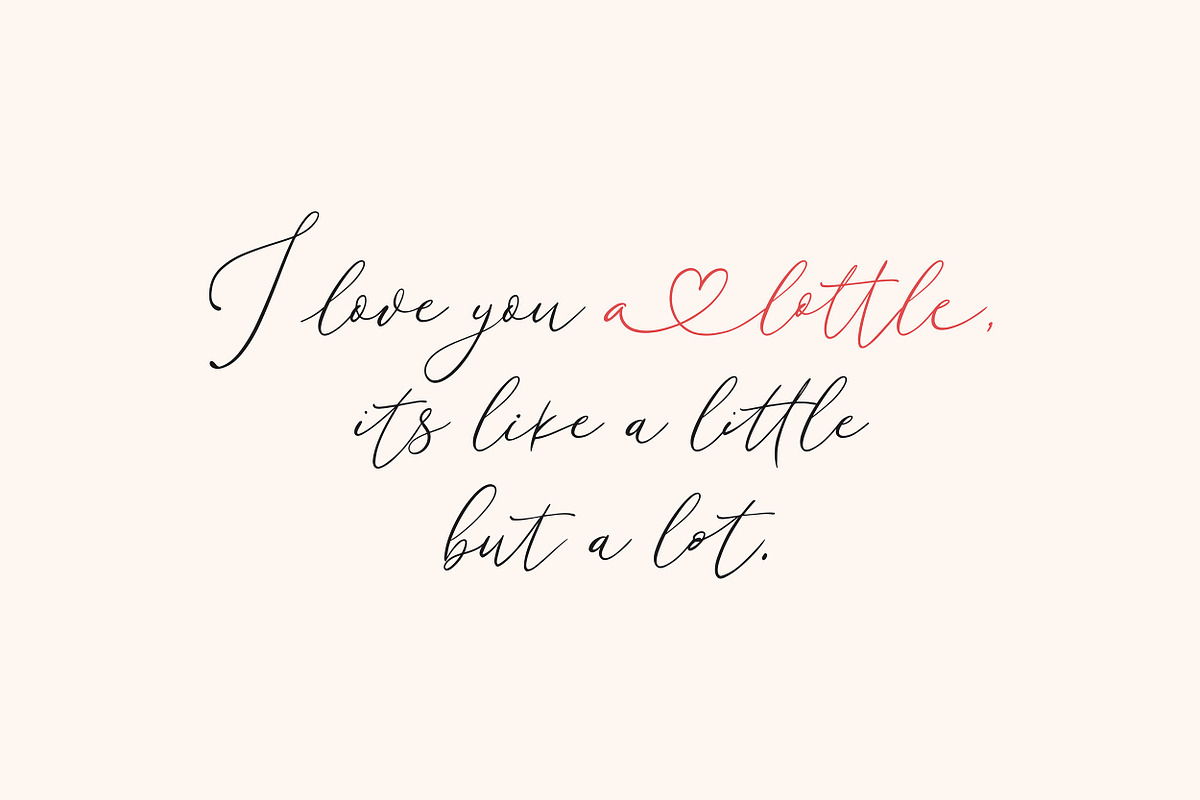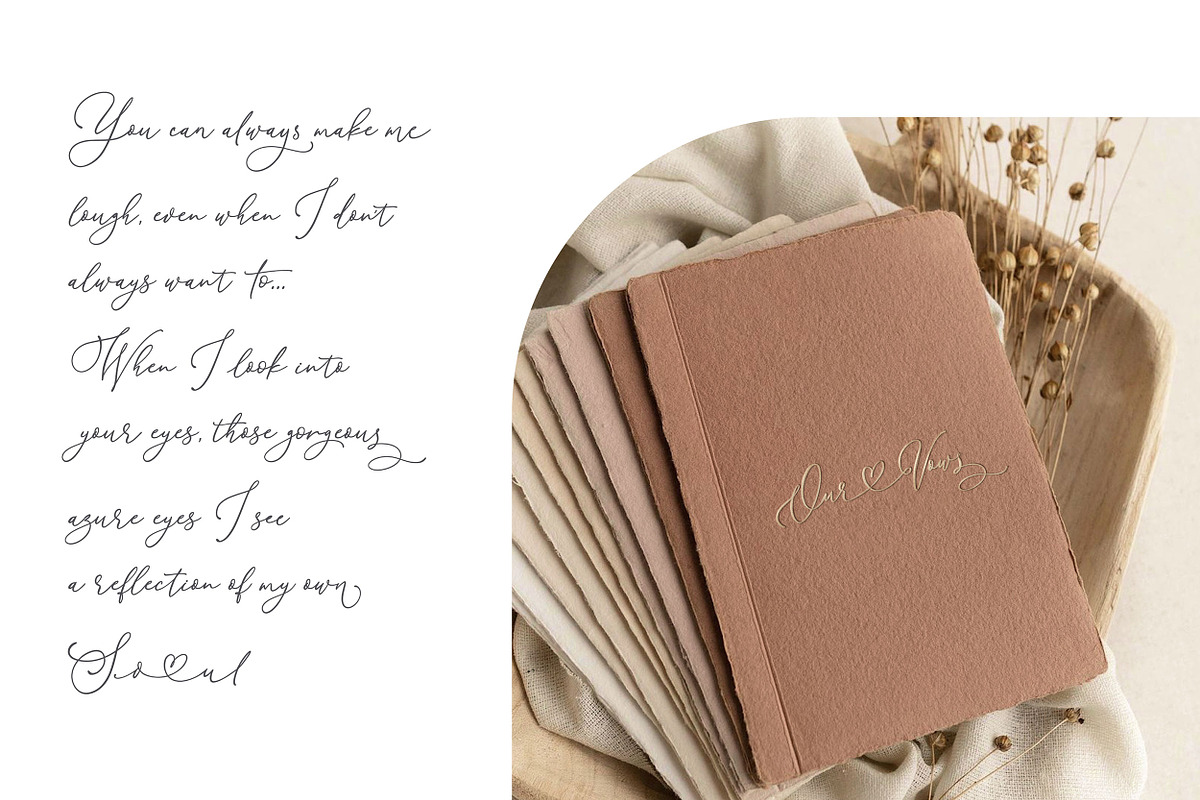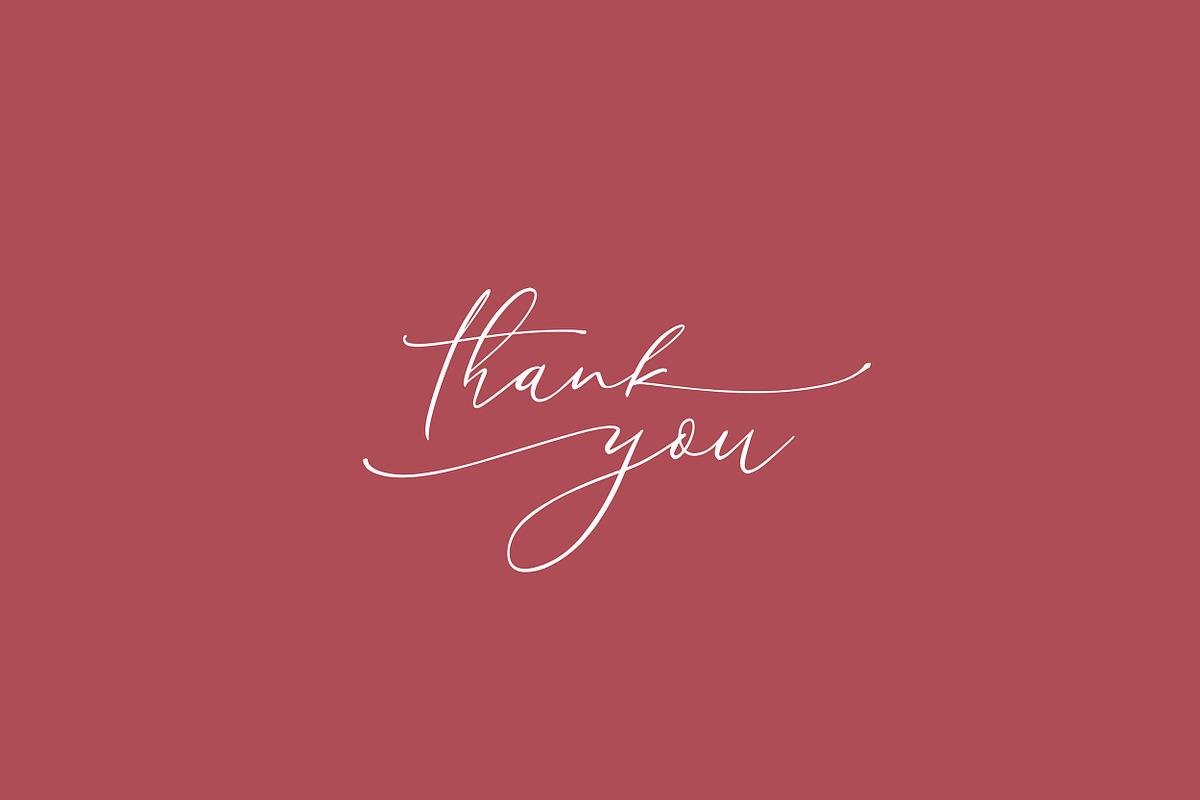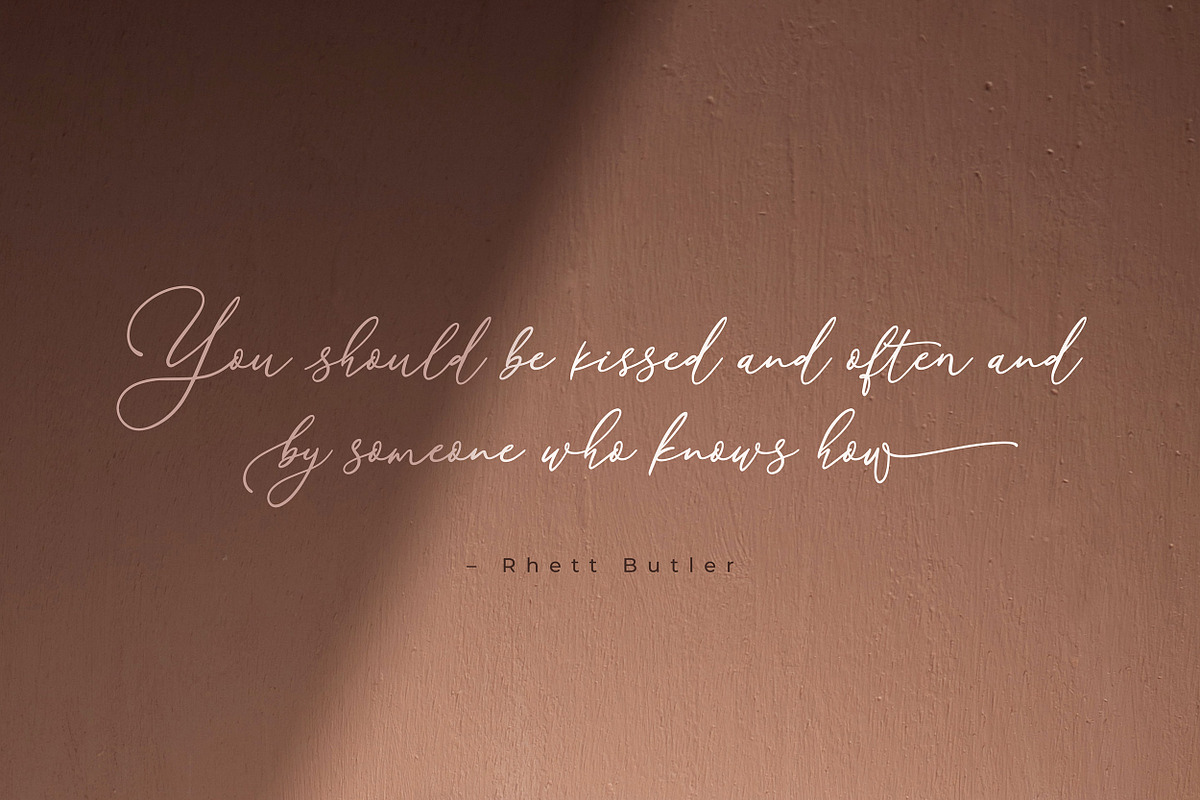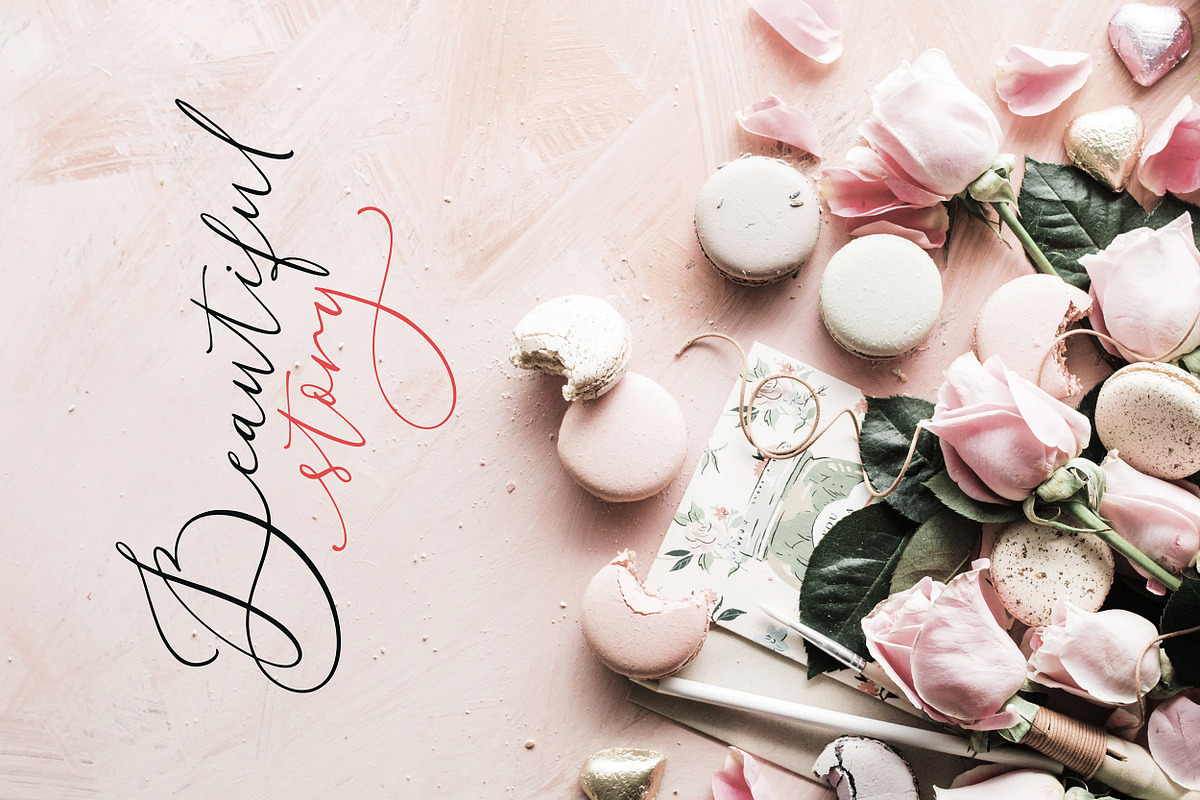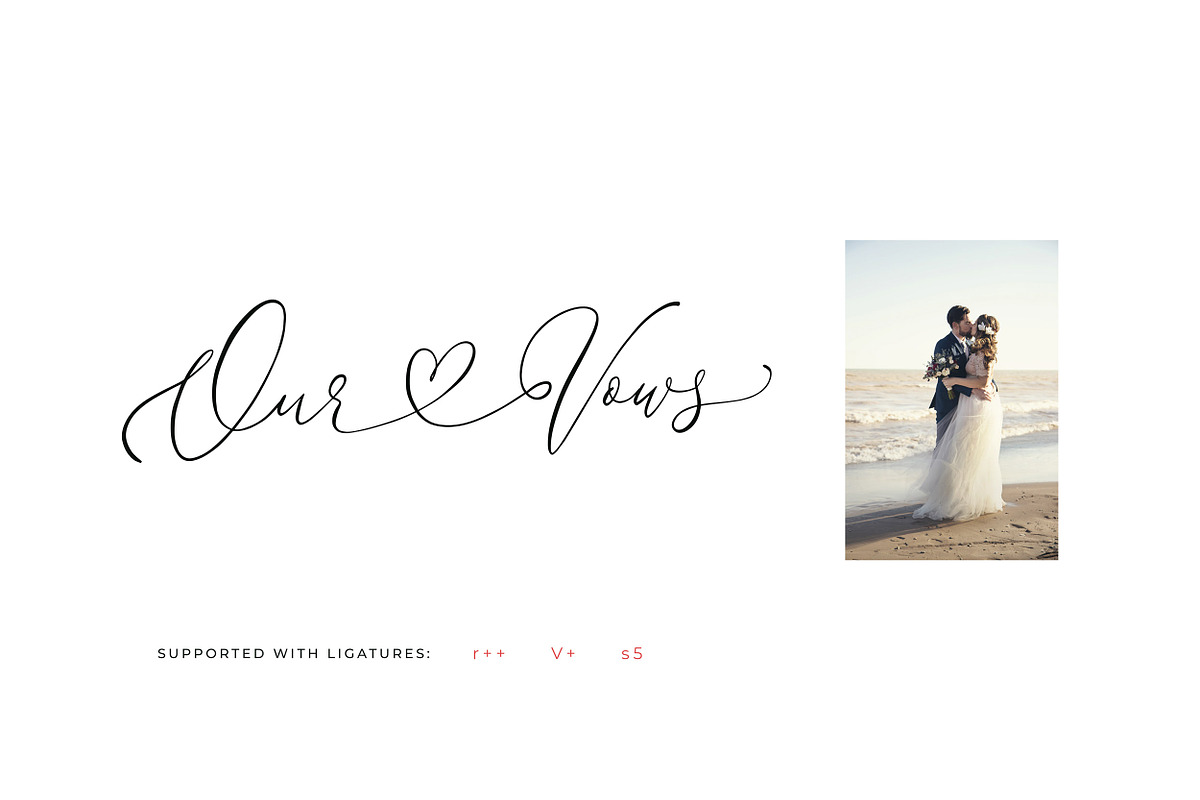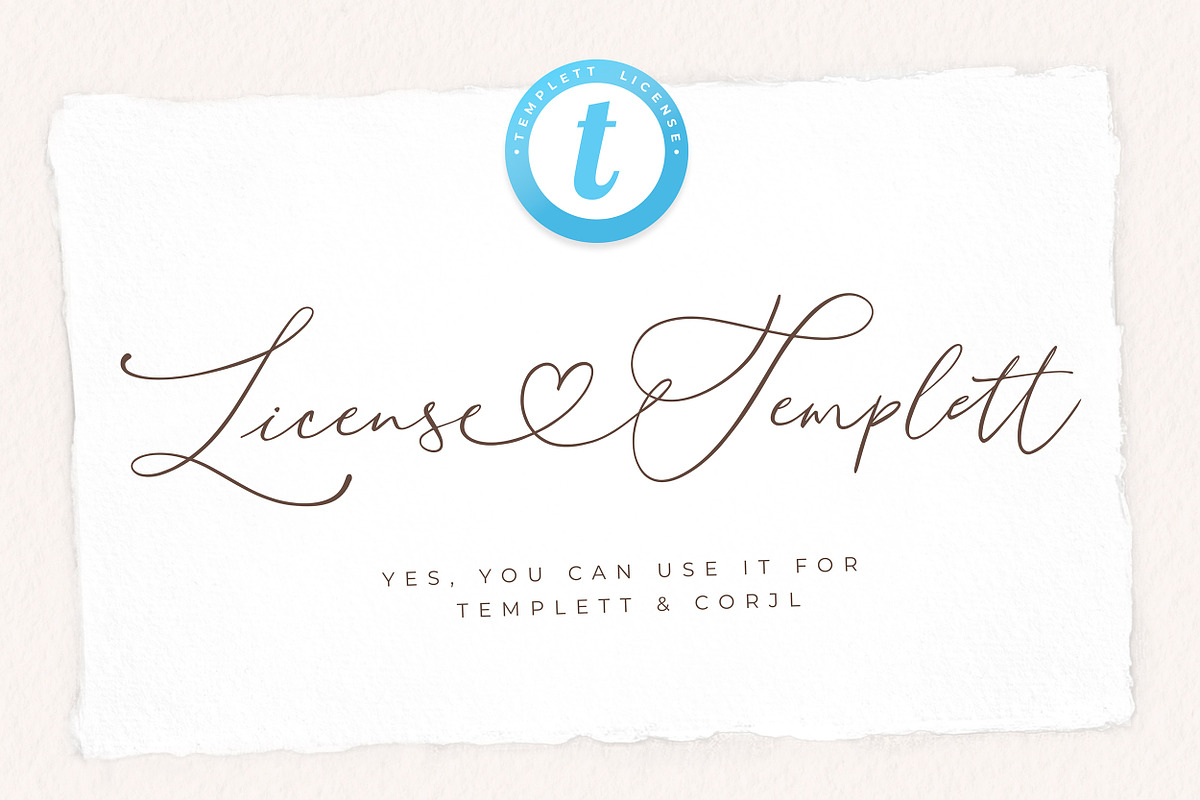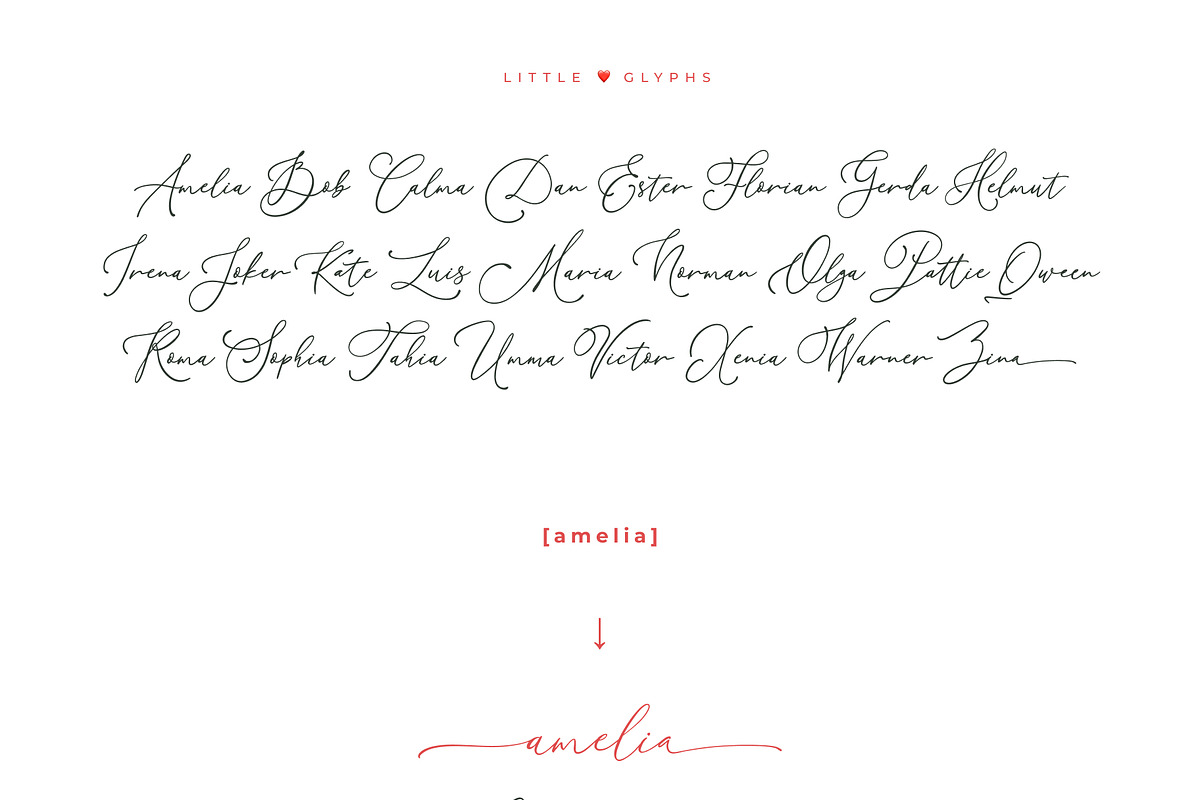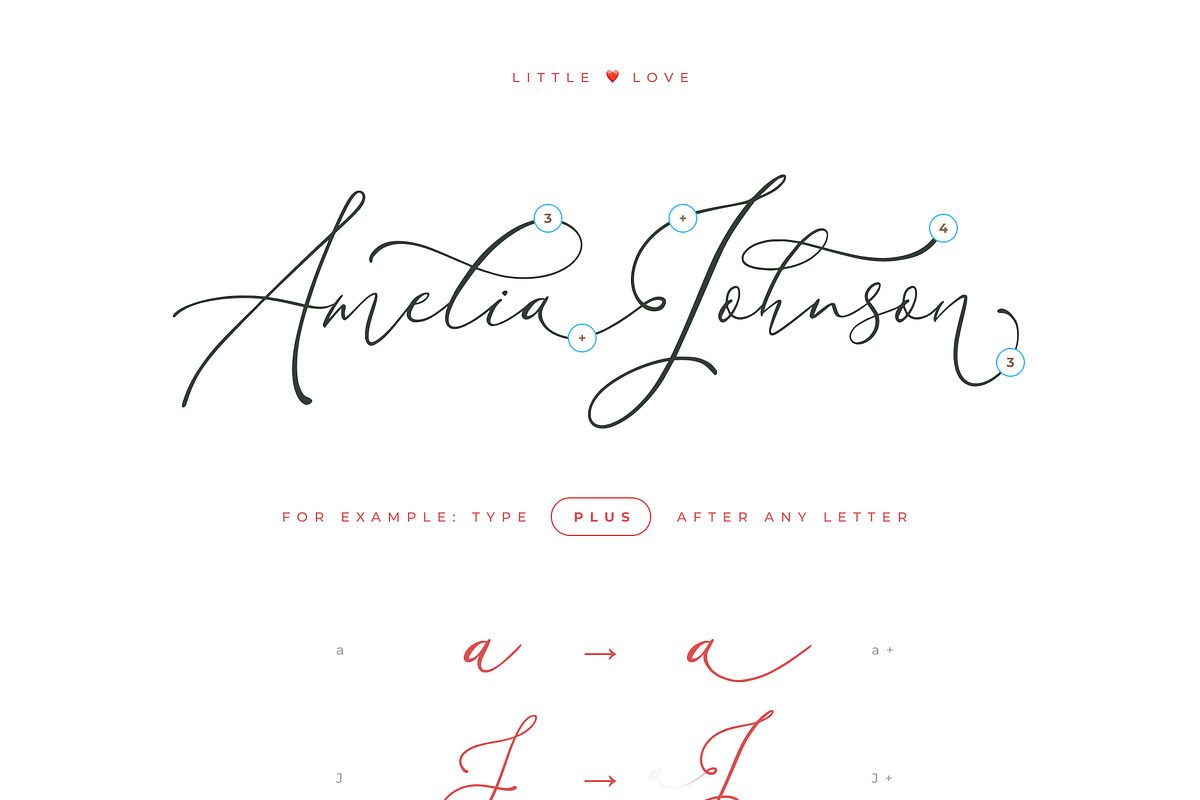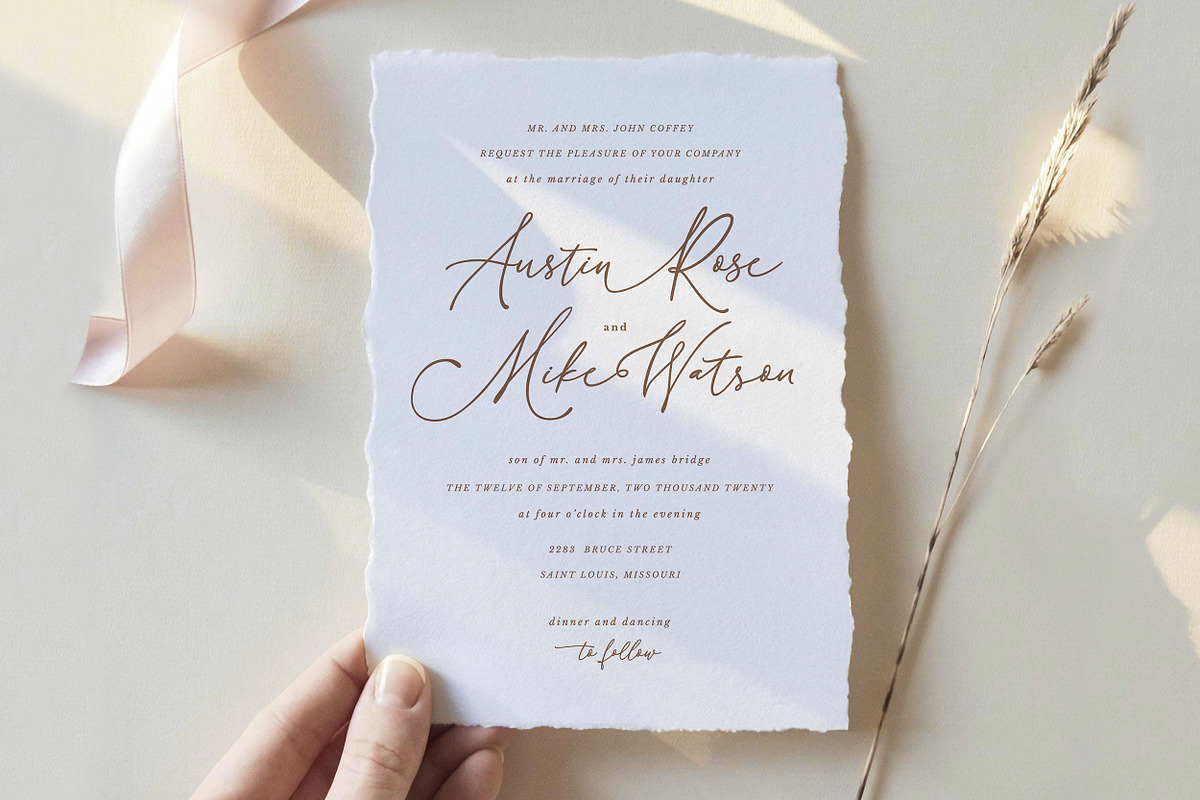
Little Love - for Templett & Corjl
Introducing modern calligraphy font with lots of hearts inside: Little Love. This lovely script is dedicated to Valentine Day and all lovers.
- 862 glyphs with PUA encoded
- tones of hearts, swashes and alternates
- try to add PLUS (+) after any letter. No matter lowercase or uppercase
- try to add numbers after lowercase letters
- add [ for income swash and ] for outcome swash
- if you need more swashes, just type [[ or [[[ before lowercase letter
To see how it works try to type in preview window the following examples. Copy & paste each line individually.
- Am1el3ia+J+oh4nson3
- [olivia++j1acob]
- [amelia]
- Love++Y+ou
- St5y4le
- Little++L+ove+
- You [[should be k2issed and often1 and b6y someone who knows how]
- wedding invitation
- logo design
- feminine calligraphy
- valentines
- instagram posts
- silhouette craft designs (all glyphs have PUA)